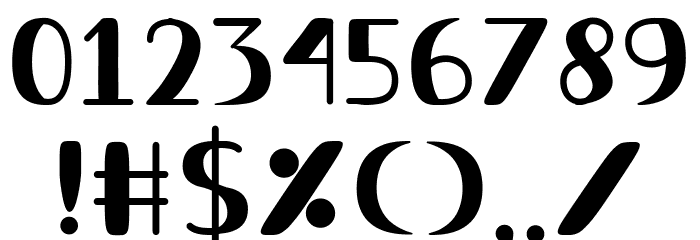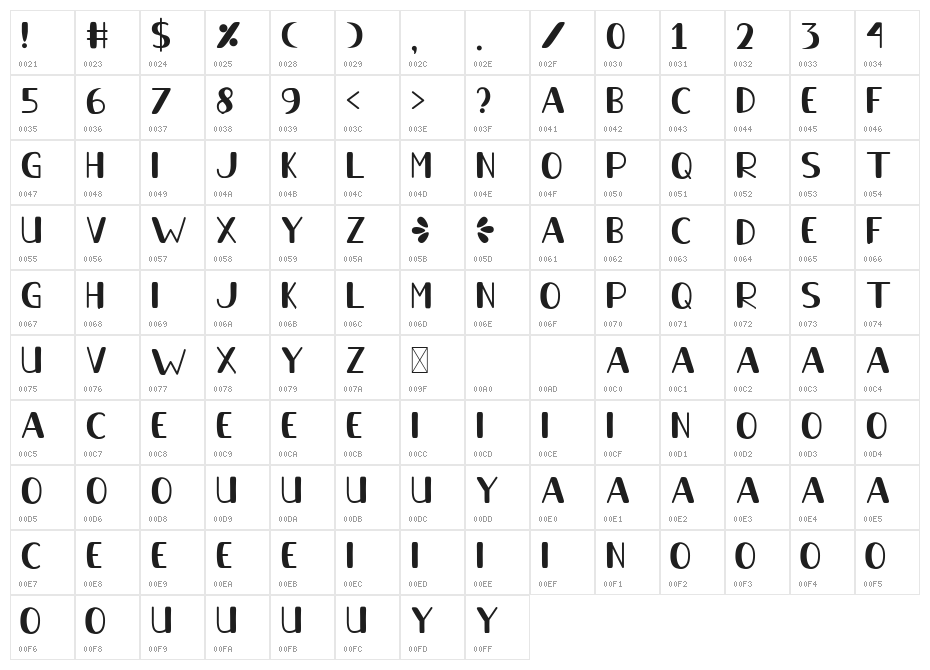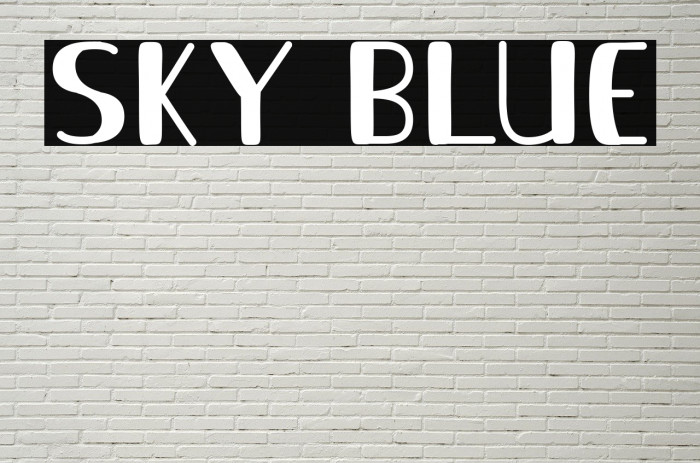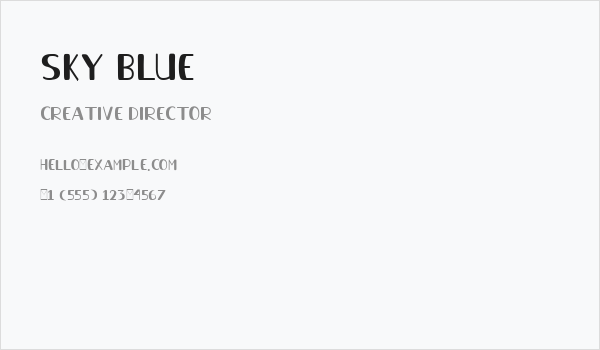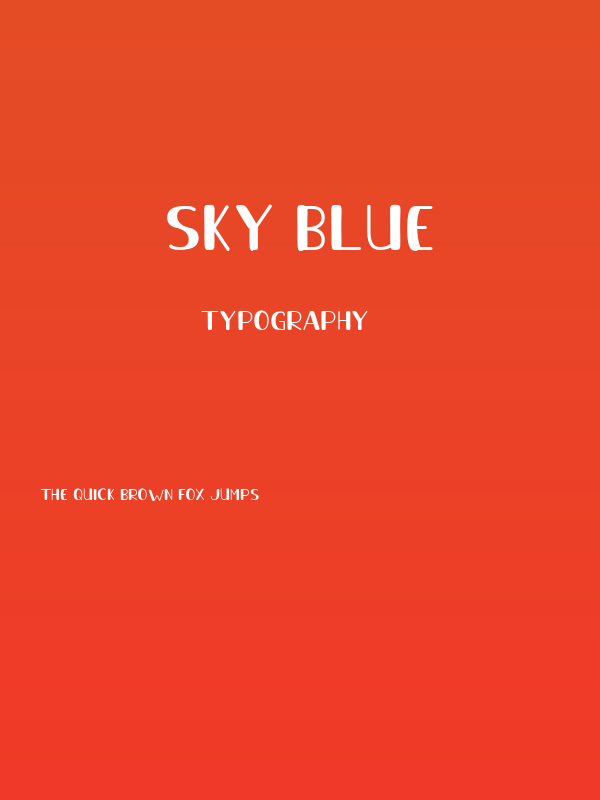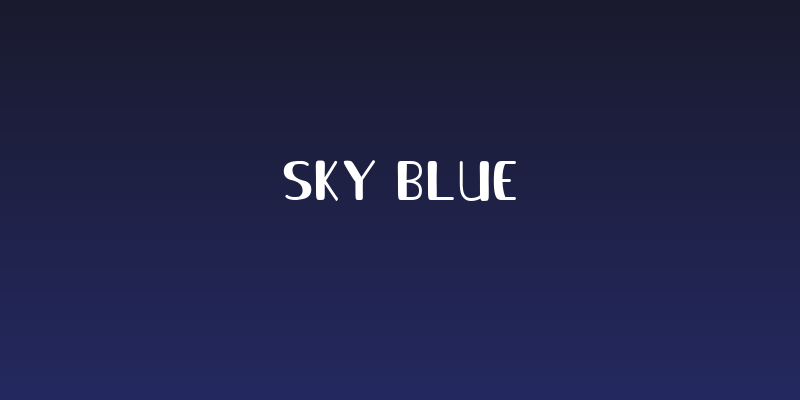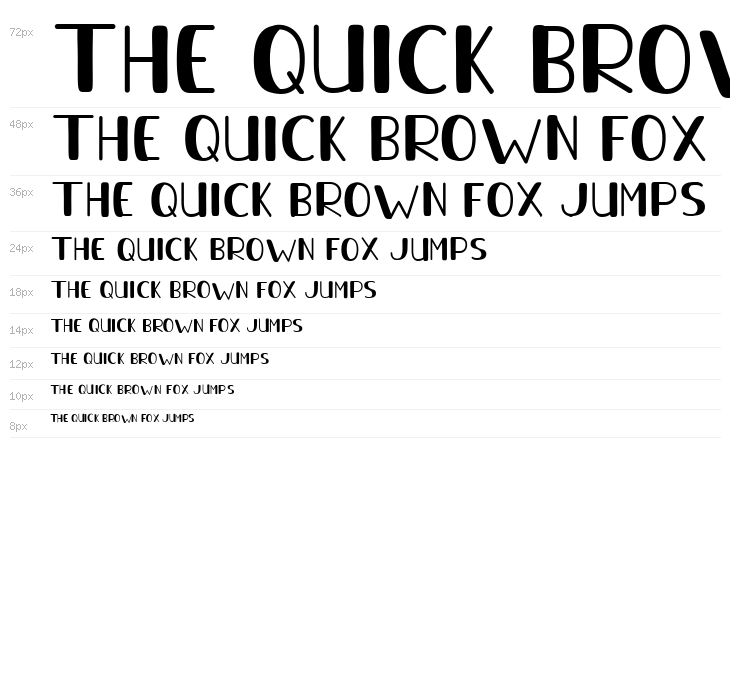
Sky Blue Font
Sky Blue Description
This font features a playful and modern design with a unique blend of rounded and angular elements. The uppercase letters exhibit a distinct style with varying stroke thickness, giving them a dynamic and lively appearance. The lowercase letters maintain a consistent flow, complementing the uppercase with their smooth curves. Numbers are bold and easily readable, while special characters are creatively designed to match the overall aesthetic. The font's style is both approachable and versatile, making it suitable for a wide range of creative projects.
Proposed ProjectsIdeal for branding, children's books, creative posters, and playful packaging designs.